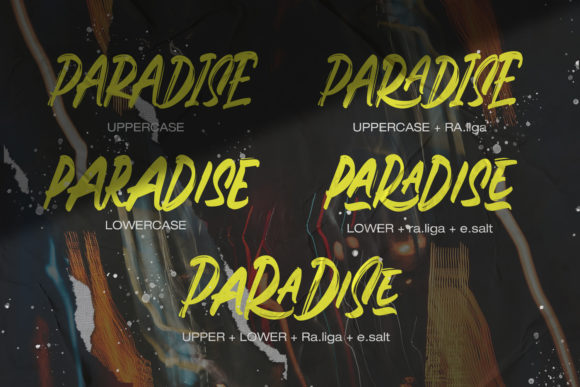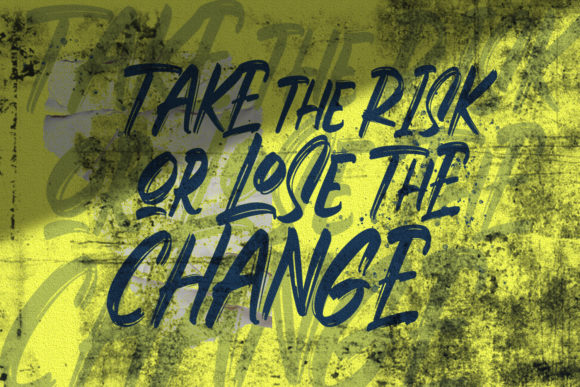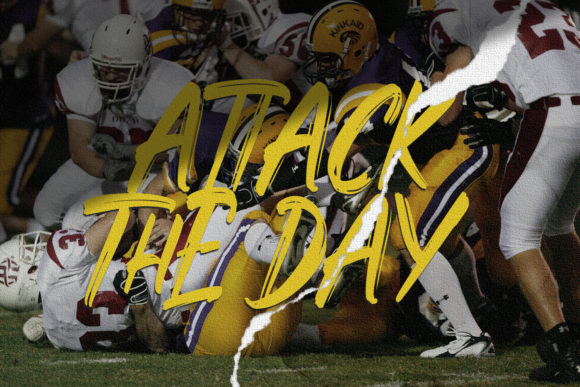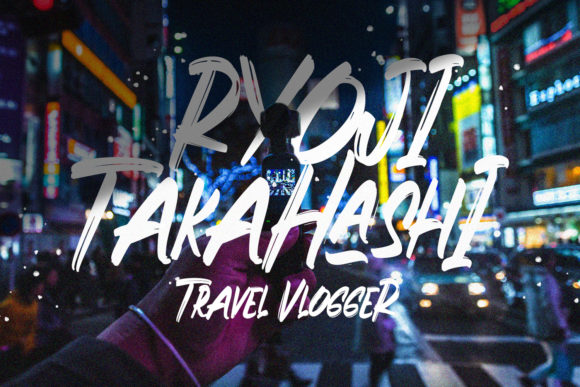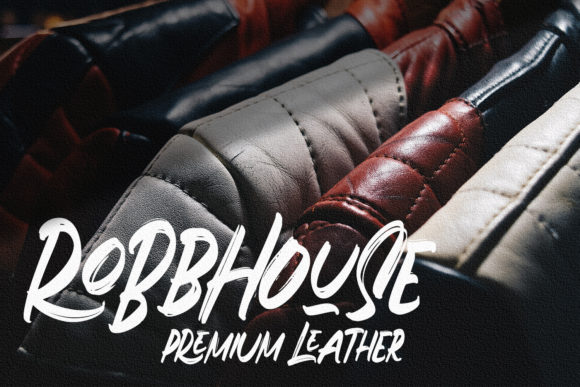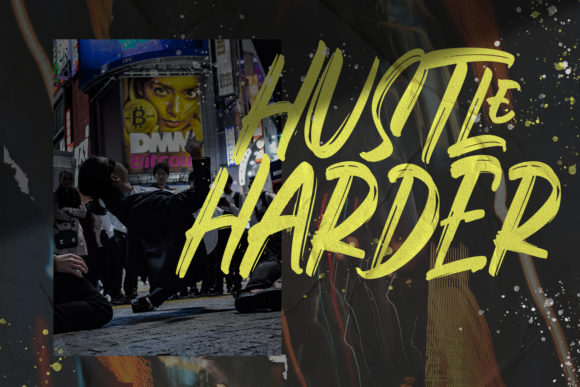
Introduction to Mighty Brushes Font
Have you ever been working on a DIY project and felt like it’s missing that special something? You know, that personal touch that makes it truly unique and memorable? I’ve been there, and that’s exactly when I discovered the Mighty Brushes Font. This gorgeous handbrushed font is a game-changer for designers and crafty enthusiasts alike, and I’m excited to share its magic with you.
Imagine being able to add a touch of authenticity to your design projects with a font that’s both free to download and incredibly versatile. With its transparent background and high-quality design, the Mighty Brushes Font is the perfect resource for anyone looking to elevate their creative projects. Whether you’re working on a branding project or a DIY craft, this font is sure to bring your ideas to life in a way that’s both elegant and endearing.
Key Features of Mighty Brushes Font
- Unique, hand-painted style with a creative and artistic feel, perfect for design projects that require a touch of personality.
- Perfect for creative projects, including logos, branding materials, and editorial content, where a unique and artistic touch is required.
Honest Review: Mighty Brushes Font
As a designer, I’m always on the lookout for new and exciting design resources to enhance my creative projects. Recently, I stumbled upon the Mighty Brushes Font, and I’m excited to share my honest review with you.
What works well: ✨ The Mighty Brushes Font is a high-quality, hand-drawn font that’s perfect for designers who want to add a touch of whimsy to their projects. The font is available for free download, making it an excellent resource for designers on a budget. I appreciate the transparent background, which allows for seamless integration into any design.
- Unique, hand-drawn design
- High-quality, crisp lines
What could improve: ⚠️ While the Mighty Brushes Font is a great addition to any design library, I do wish it had more characters and glyphs to increase its versatility. Additionally, the font may not be suitable for formal or professional projects, as its hand-drawn design may come across as too playful.
Overall, I’m impressed with the Mighty Brushes Font and would recommend it to designers who are looking for a creative, high-quality font to add to their design resource library.
To get the most out of the Mighty Brushes Font, consider using it with a transparent background to add depth and texture to your designs. You can also experiment with different font sizes and styles to create a unique visual effect. Additionally, pair the font with high-quality images to elevate your creative project.
Common Use Cases for the Font
The Mighty Brushes Font is ideal for creative projects such as branding, advertising, and digital art. Its unique design makes it perfect for adding a touch of personality to your work. Whether you’re a professional designer or a hobbyist, this font is sure to inspire your next creative project.